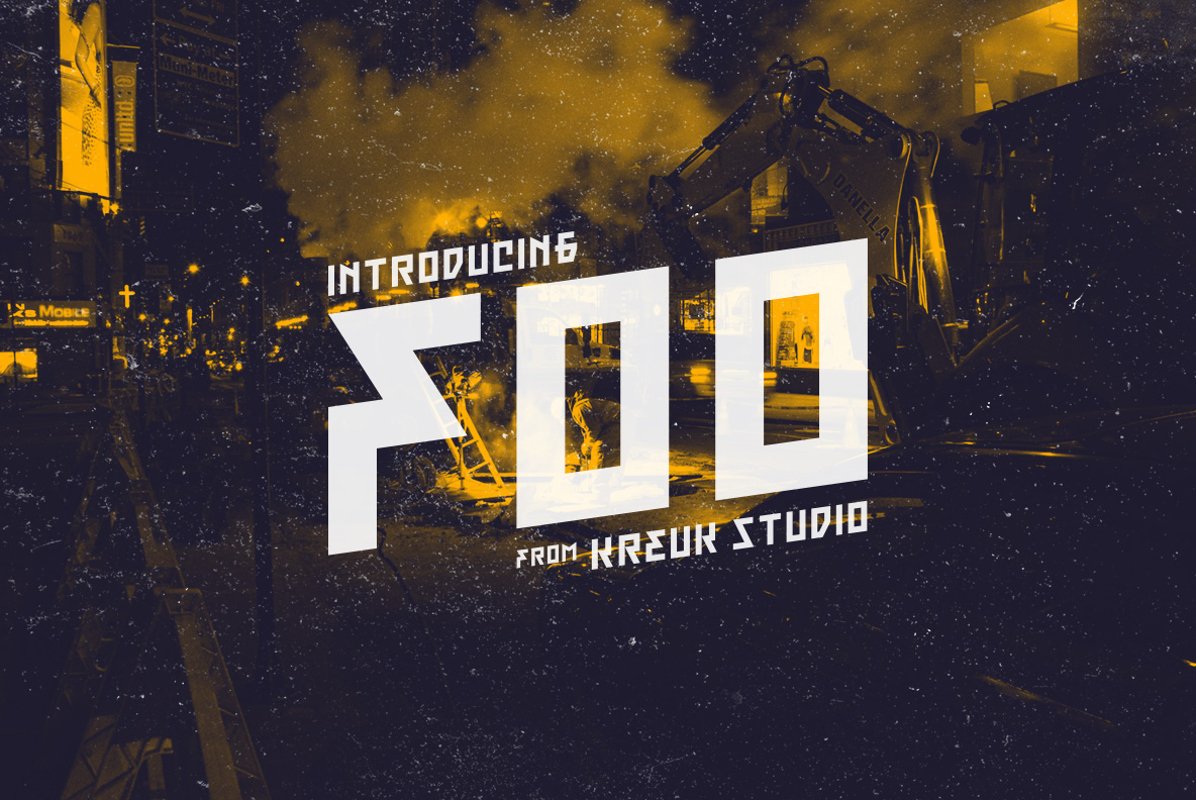
Foo Display
KS Foo is Display typeface with countless possibilities.
Sub-culture inspired display with sharp & striking form display.
From Gigs posters to skateboard to clothing industries.
Ideally suited for headline, logo, branding, posters etc.